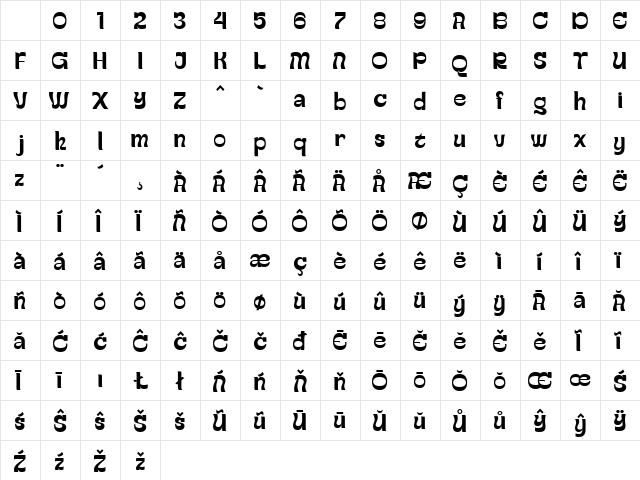
Complete Gayo Wine Demo Regular glyph index. Displaying only characters natively supported by Gayo Wine Demo Regular font.
Gayo Wine Demo is a composed and adaptable typeface that performs quietly and consistently across a wide range of design contexts.